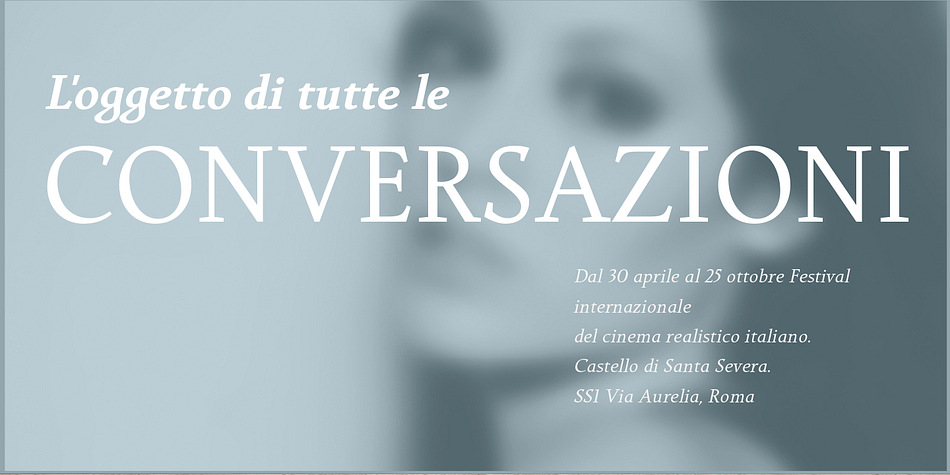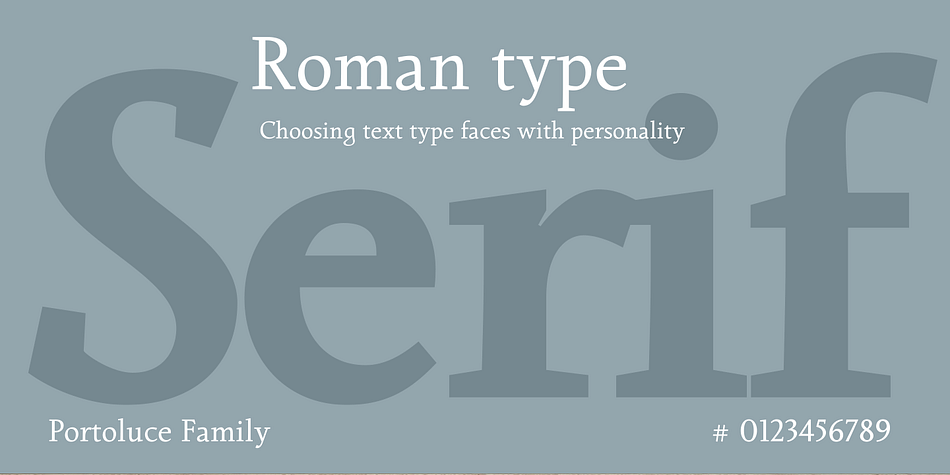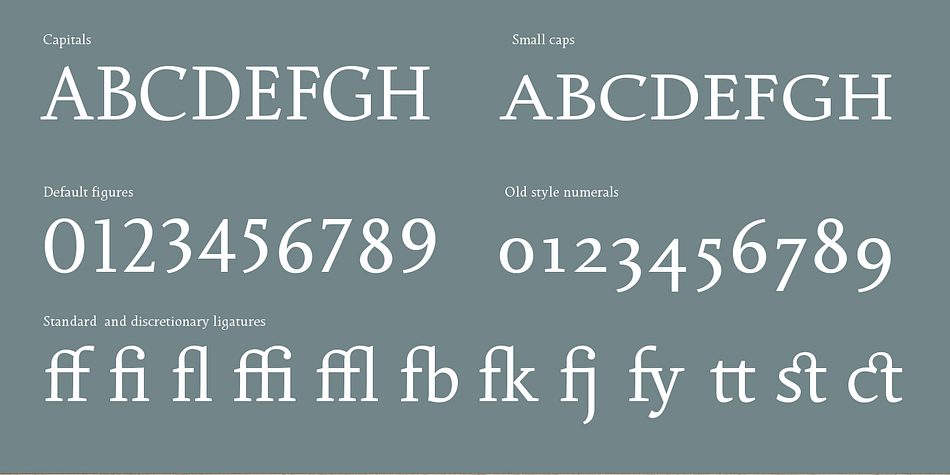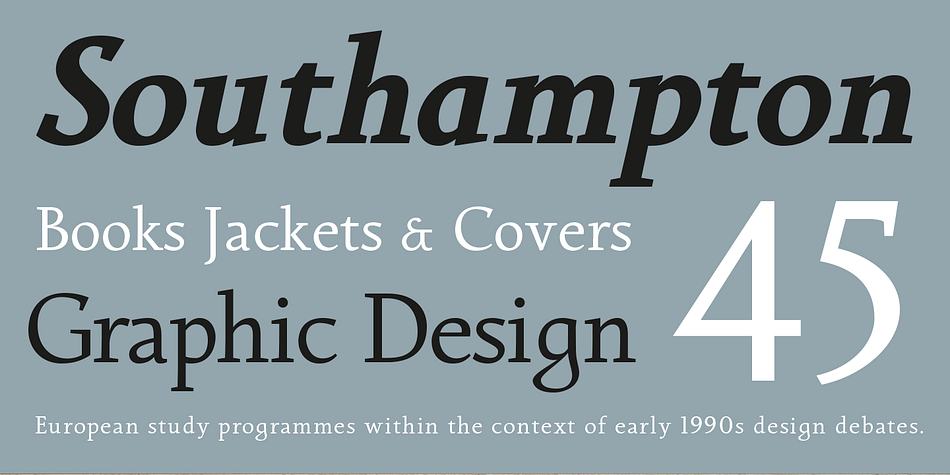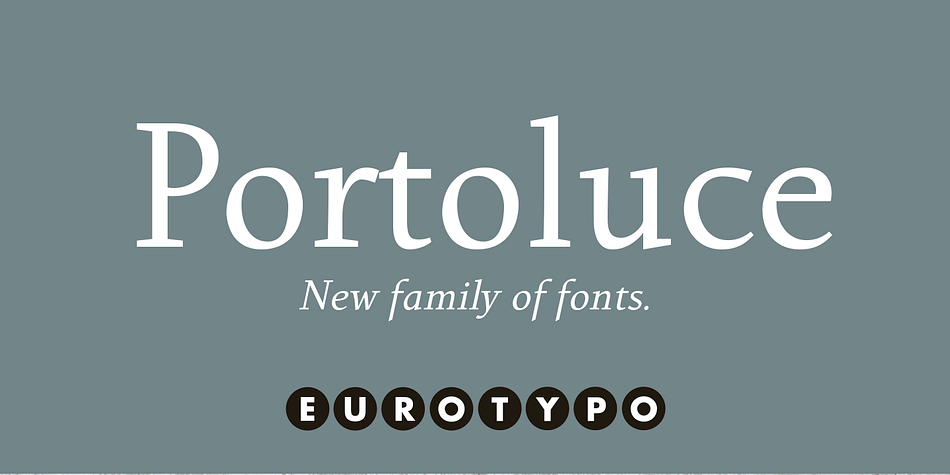
Designed by Olcar Alcaide, Portoluce is a serif font family. This typeface has six styles and was published by Eurotypo.
Portoluce is a Roman typeface. These fonts are delicate and highly readable at very small sizes but reveals all its strength and personality when used at big sizes. The contrast of the sharped serifs provides a fresh and very contemporary look.
The family has 3 weights with italics, ranging from Regular to Black ideally suited for advertising and packaging, book text, editorial and publishing, logo and branding, small text as well as web and epub.
Portoluce provides advanced typographical support with features such as ligatures, old style figures and small capitals.
As well as Latin-based, the typeface family also supports Central European languages.